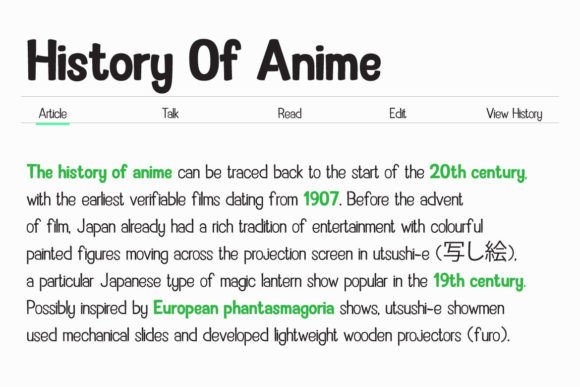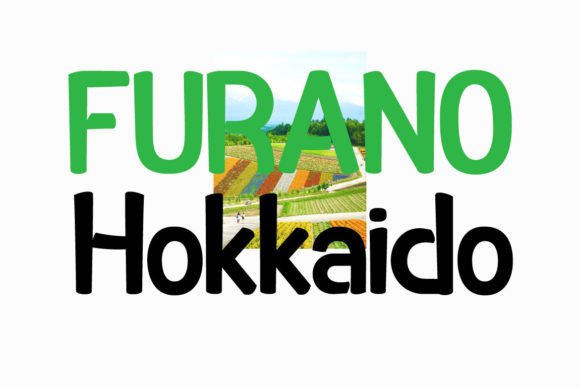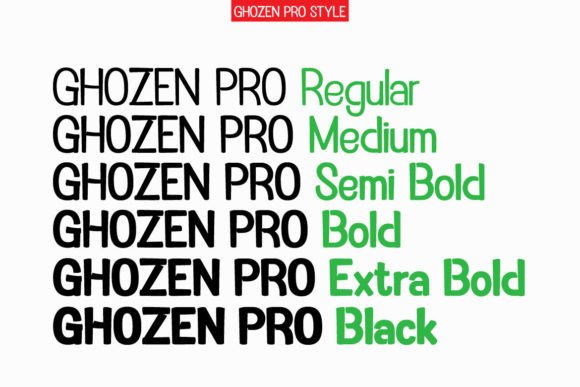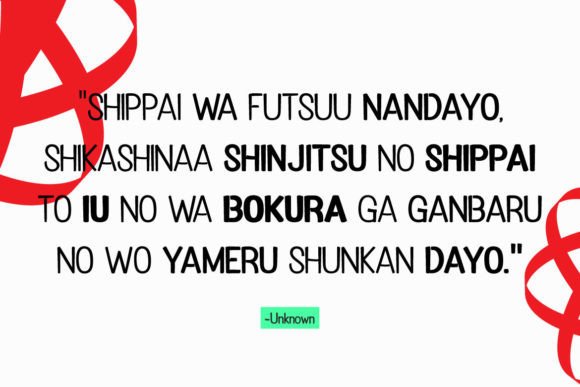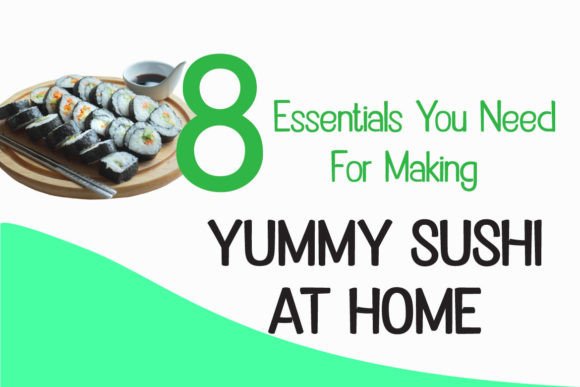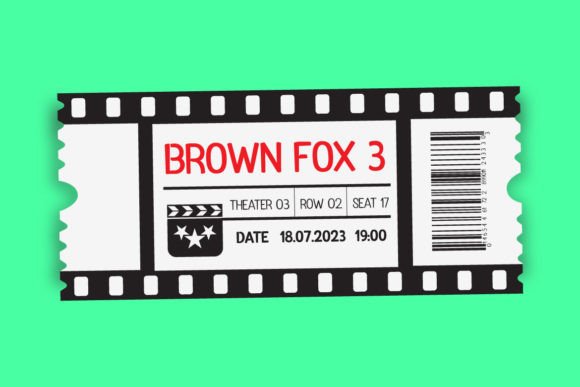
Introduction to Ghozen Pro Font
Ghozen Pro is a neat and professional-looking sans serif font.
Incredibly versatile, this typeface will look great in a wide variety of contexts .
Ghozen Pro Font offers exceptional quality and versatility, making it a valuable addition to your design toolkit. Whether you’re creating for personal projects or commercial use, Ghozen Pro Font delivers professional results.